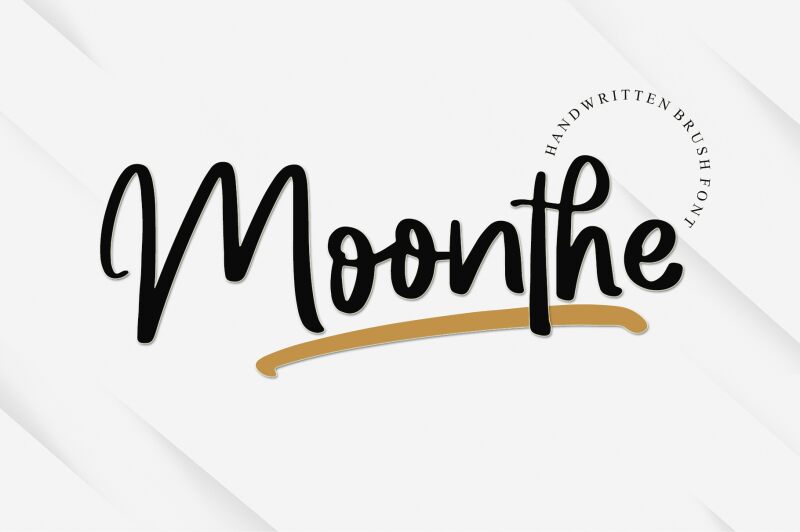
Moonthe, designed by Letterafa Studio, is a natural and fresh handwritten font that brings a touch of authenticity to your designs. With its strong brush strokes, Moonthe exudes toughness and is ready to elevate your creations.
This versatile typeface is ideal for crafting eye-catching logos, inspiring quotes, captivating posters, and stylish clothing designs. Let Moonthe take center stage in any of your creative projects and prepare to be amazed by the stunning outcome it delivers.